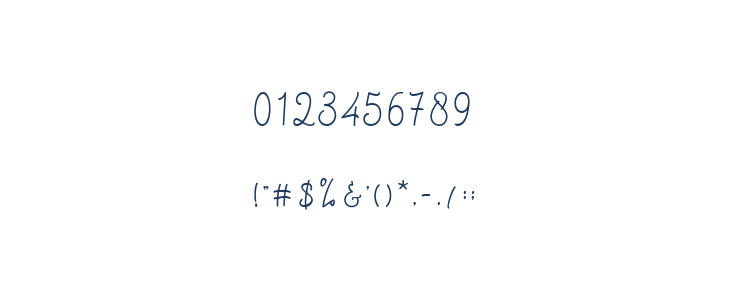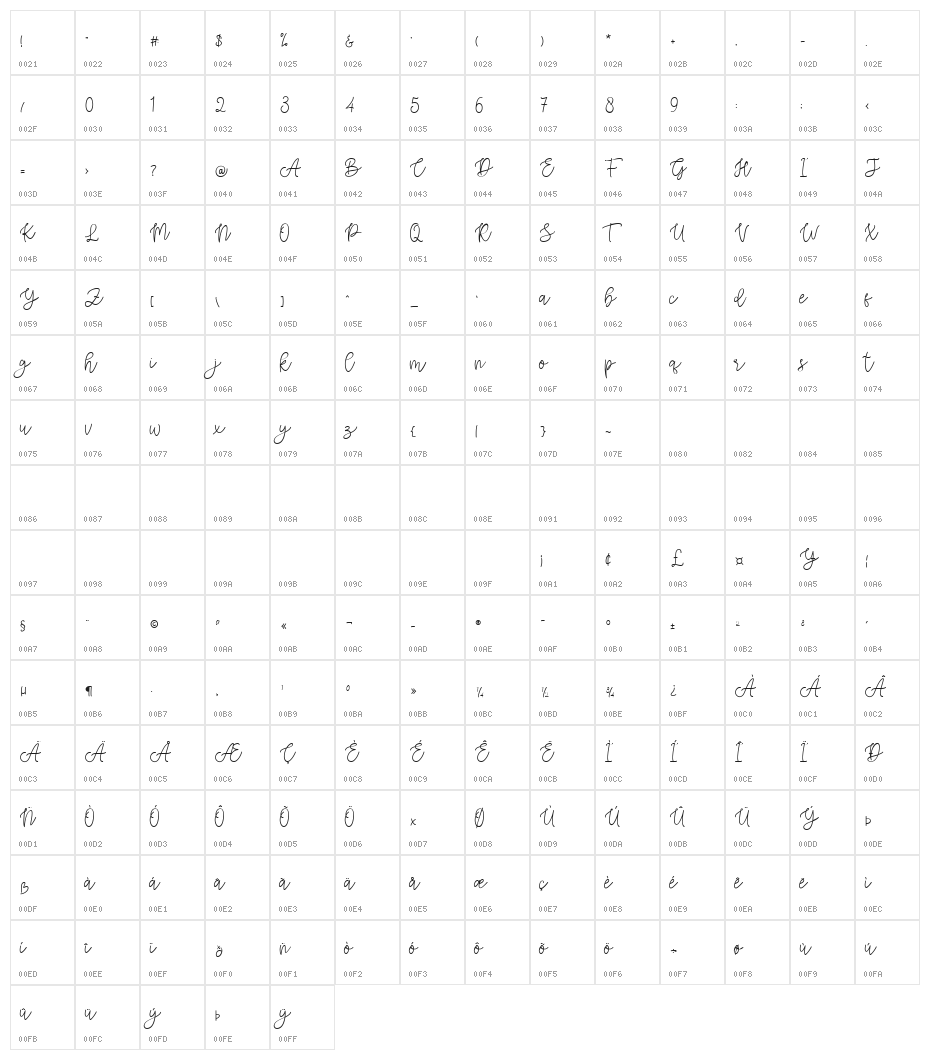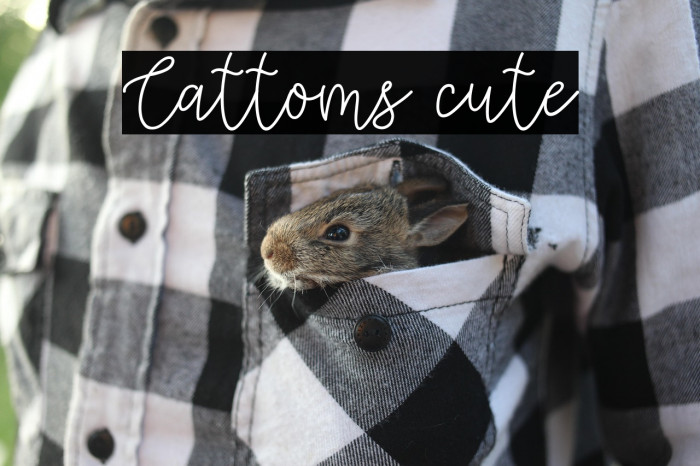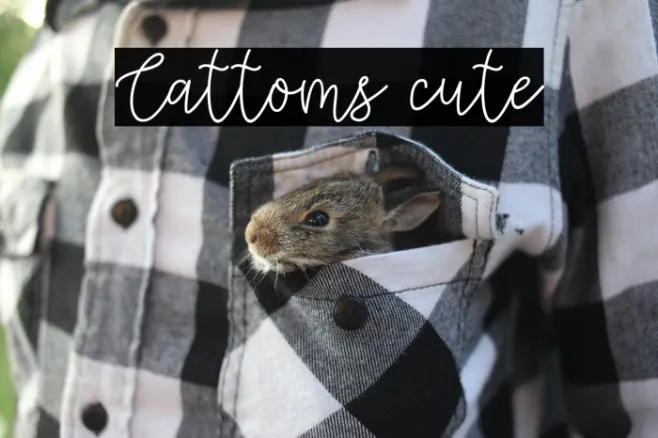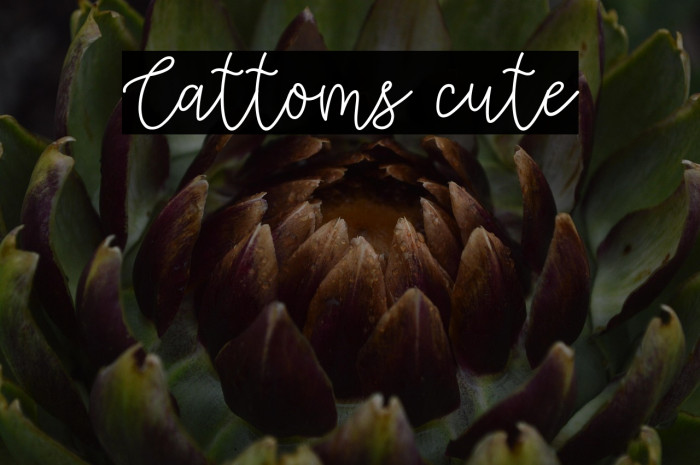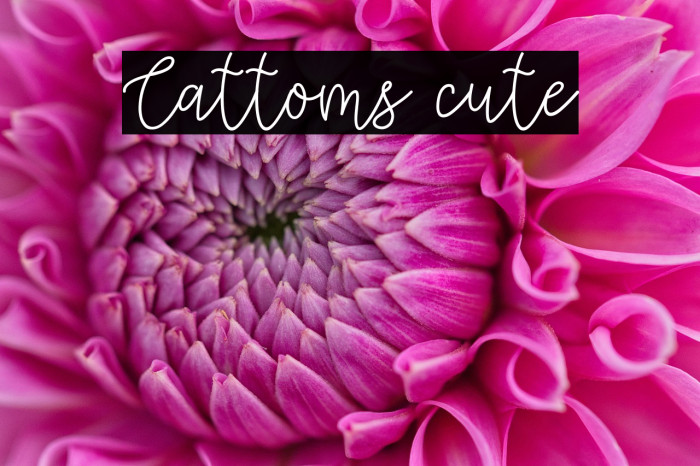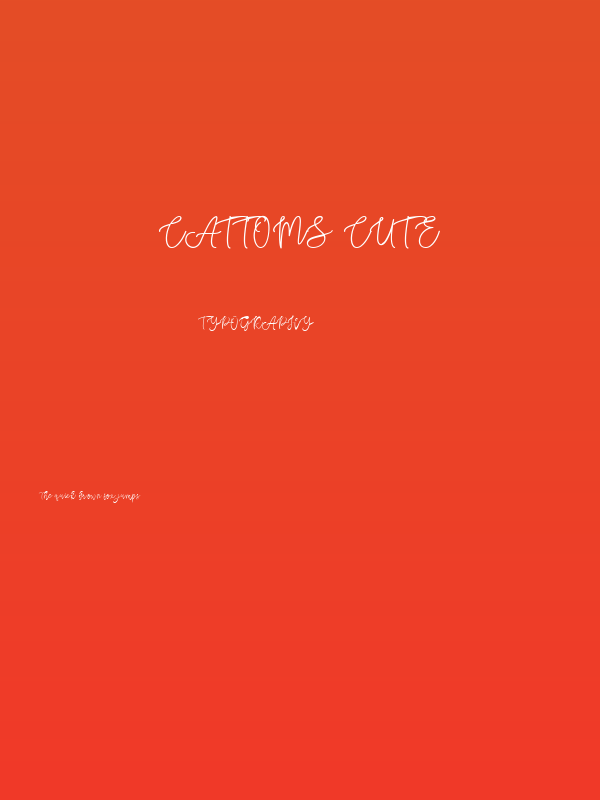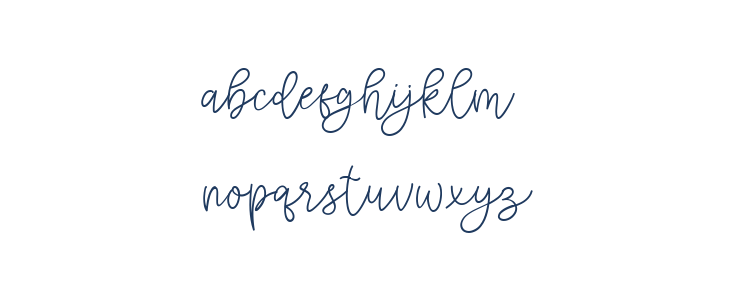
Cattoms cute Font
Cattoms cute Description
This font exhibits a charming and playful script style, characterized by its fluid and connected letterforms. The uppercase letters are elegantly looped, while the lowercase letters maintain a consistent flow, enhancing readability. The numerals are clear and well-proportioned, complementing the overall aesthetic. Special characters are thoughtfully designed, maintaining the whimsical nature of the font. The strokes are smooth and consistent, providing a harmonious appearance that is both inviting and stylish. This font is perfect for projects that require a personal touch, such as invitations, greeting cards, and playful branding.
Use CaseLogos, Headlines, Invitations
Proposed ProjectsIdeal for invitations, greeting cards, playful branding, and personal projects.